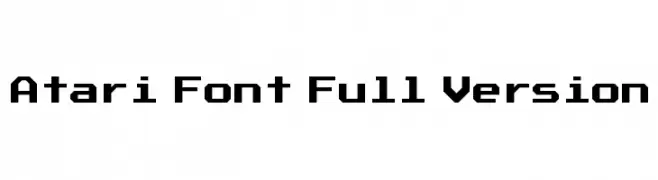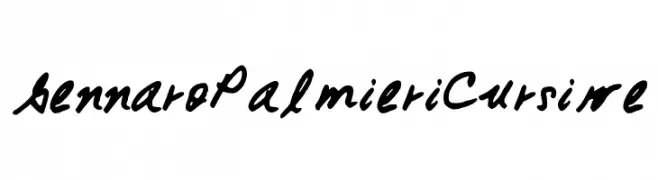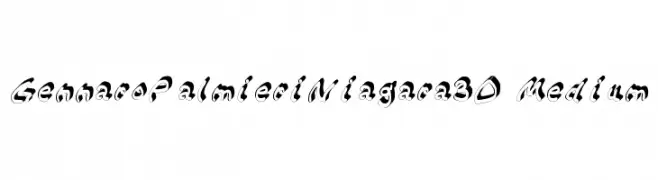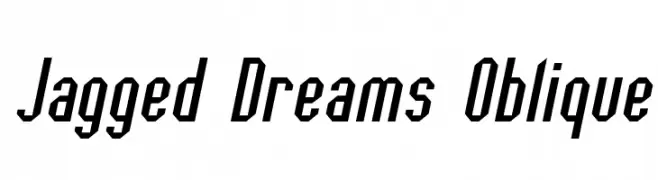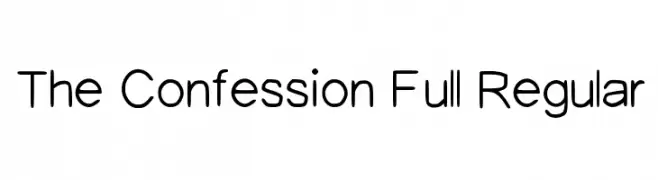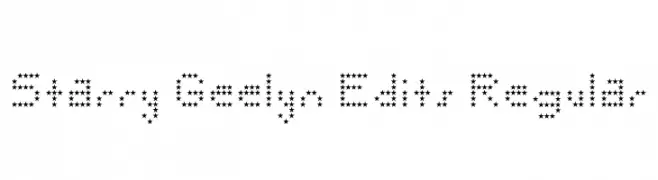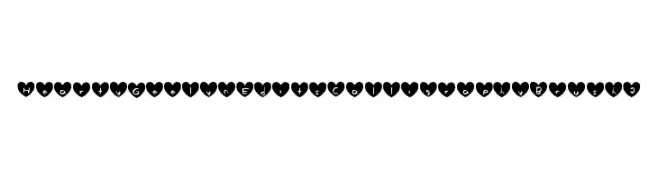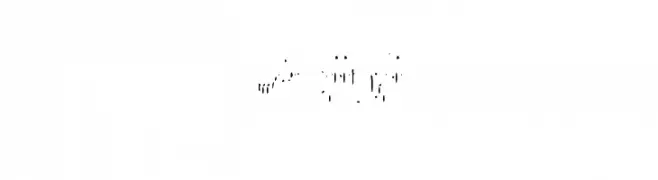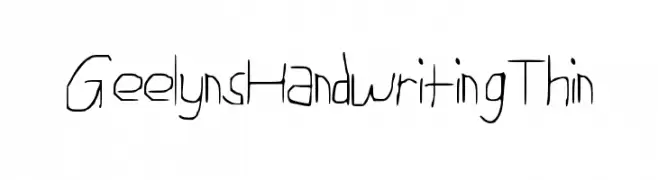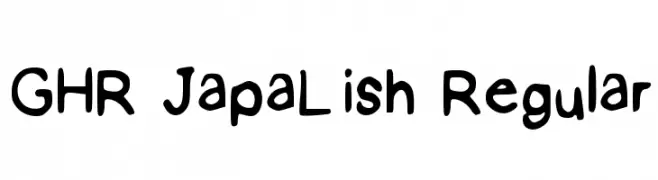
( Genshichi Yasui - www.jttk.zaq.ne.jp/babwp701/hpfont/font.html )
A bold, geometric font with a retro, arcade-inspired style.
( Gennaro Palmieri )
A dynamic cursive font with bold strokes and elegant flow.
( Gennaro Palmieri )
A playful, handwritten font with bold, rounded characters.
( Gennaro Palmieri )
A bold, 3D decorative font with a playful and dynamic style.
( Gemma Campbell )
A bold, playful handwritten font with a whimsical and friendly style.
( GemFonts - moorstation.org/typoasis/designers/gemnew/home.htm )
A classic serif font with elegant strokes and refined serifs.
( GemFonts - moorstation.org/typoasis/designers/gemnew/home.htm )
Elegant serif font with an oblique style, perfect for formal applications.
( GemFonts - moorstation.org/typoasis/designers/gemnew/home.htm )
A bold, angular, and oblique font with a dynamic and geometric style.
( GeelynEdits - plus.google.com/u/0/108461348931992643310/ )
A modern sans-serif font with rounded edges and balanced spacing.
( GeelynEdits - plus.google.com/u/0/108461348931992643310/ )
A decorative font made of star shapes, perfect for creative projects.
( GeelynEdits - plus.google.com/u/0/108461348931992643310/ )
A pixelated, monospaced font with a retro digital aesthetic.
( GeelynEdits - plus.google.com/u/0/108461348931992643310/ )
A playful, heart-encased decorative font with a bold, hand-drawn style.
( GeelynEdits - plus.google.com/u/0/108461348931992643310/ )
A playful, heart-themed decorative font with a hand-drawn, artistic style.
( GeelynEdits - plus.google.com/u/0/108461348931992643310/ )
A playful, heart-enclosed handwritten font perfect for romantic or themed designs.
( GeelynEdits - plus.google.com/u/0/108461348931992643310/ )
A whimsical font with characters inside heart shapes, ideal for romantic and playful designs.
( GeelynEdits - plus.google.com/u/0/108461348931992643310/ )
Hand-drawn, textured heart shapes in a repeating pattern.
( GeelynEdits - plus.google.com/u/0/108461348931992643310/ )
A playful, crayon-textured font with characters inside heart shapes.
( GeelynEdits - plus.google.com/u/0/108461348931992643310/ )
A decorative font with characters enclosed in heart shapes, offering a playful and romantic style.
( GeelynEdits - plus.google.com/u/0/108461348931992643310/ )
A whimsical, heart-shaped font with a handwritten, brush-like style.
( GeelynEdits - plus.google.com/u/0/108461348931992643310/ )
A playful, heart-enclosed font with a handwritten, brush-like style.
( GeelynEdits - plus.google.com/u/0/108461348931992643310/ )
A super thin, elegant handwriting-style font with a modern touch.
( GeelynEdits - plus.google.com/u/0/108461348931992643310/ )
A thin, handwritten font with a casual and personal style.
( GeelynEdits - plus.google.com/u/0/108461348931992643310/ )
A playful, hand-drawn font with irregular, rounded edges and a whimsical style.
( GeelynEdits - plus.google.com/u/0/108461348931992643310/ )
A playful, handwritten font with rounded, consistent strokes and a casual style.
( GeelynEdits - plus.google.com/u/0/108461348931992643310/ )
A playful, brush-style font with rounded, hand-drawn strokes.
( GeelynEdits - plus.google.com/u/0/108461348931992643310/ )
A playful, handwritten font with a textured and organic appearance.
( GeelynEdits - plus.google.com/u/0/108461348931992643310/ )
A dynamic brush-style font with medium strokes and expressive characters.
( GeelynEdits - plus.google.com/u/0/108461348931992643310/ )
A playful, casual handwritten font with fluid, connected strokes.
( GeelynEdits - plus.google.com/u/0/108461348931992643310/ )
A playful, dotted font with a bubble-like appearance, perfect for creative projects.
( GeelynEdits - plus.google.com/u/0/108461348931992643310/ )
A pixelated, dot-based font with a retro digital aesthetic.
( Gaut Fonts - moorstation.org/typoasis/designers/gaut/index.htm )
A bold, playful font with thick outlines and a cartoonish style.
( Gaut Fonts - moorstation.org/typoasis/designers/gaut/index.htm )
A bold, playful font with a hand-drawn, whimsical style.
( Gaut Fonts - moorstation.org/typoasis/designers/gaut/index.htm )
A bold, playful font with thick outlines and a cartoonish style.
( Gaut Fonts - moorstation.org/typoasis/designers/gaut/index.htm )
A bold, playful handwritten font with a cartoonish style and thick outlines.
( Gaut Fonts - moorstation.org/typoasis/designers/gaut/index.htm )
A bold, playful font with thick, rounded strokes and a hand-drawn feel.